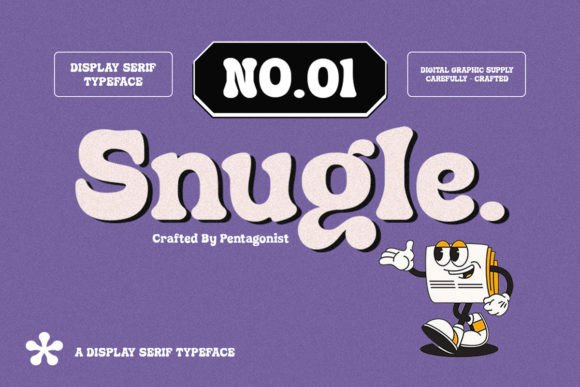
Prepare to fall in love with Snugle Font, the captivating display font that exudes a playful and cheerful aura, perfect for captivating designs with a touch of whimsy. This font is a masterpiece crafted by Pentagonistudio, renowned for their exceptional typography skills.
Immerse yourself in the delightful world of Snugle Font, where letters dance with a carefree spirit, creating a visual symphony. Each character is meticulously designed with a playful twist, reminiscent of a child's carefree laughter. Snugle Font is the embodiment of fun and lightheartedness, perfect for adding a spark of joy to your creative projects.
With Snugle Font, you can effortlessly bring your designs to life. Its playful nature makes it ideal for children's themed designs, where imagination knows no bounds. Picture a children's book adorned with Snugle Font, where each page is a kaleidoscope of colors and charming characters. The font's unique charm adds a touch of magic to any design, making it impossible to resist.
Unleash your creativity and explore the endless possibilities of Snugle Font. Its versatility extends beyond children's designs, making it a versatile choice for a wide range of projects. Create eye-catching posters, vibrant social media graphics, or distinctive logos that leave a lasting impression. Snugle Font is the perfect companion for designers seeking to make a bold statement.
As a designer, you have a unique opportunity to create designs that resonate with your audience. Snugle Font empowers you to do just that, with its ability to evoke emotions and captivate viewers. Its cheerful and playful nature has a contagious effect, spreading joy and positivity wherever it appears.
Embrace the magic of Snugle Font and let your creativity soar. Experience the delight of creating designs that bring smiles to faces and spark imaginations. Snugle Font is more than just a font; it's an invitation to embark on a journey of creativity, where the only limit is your imagination.